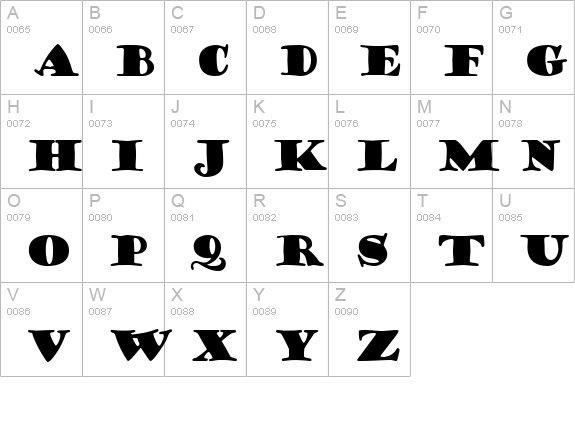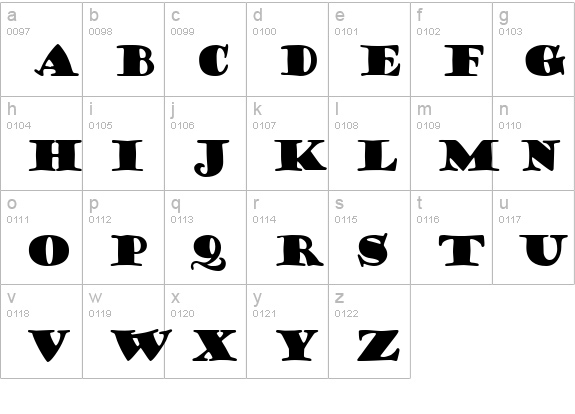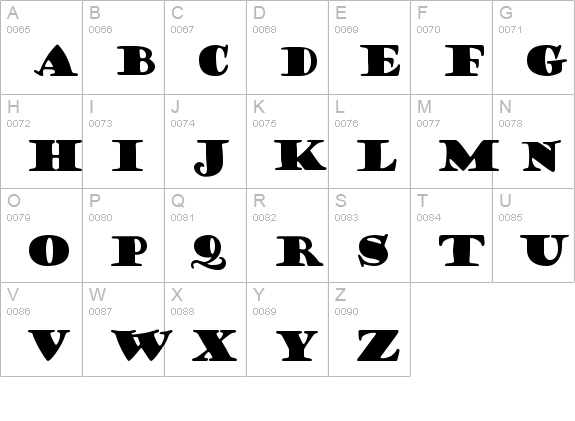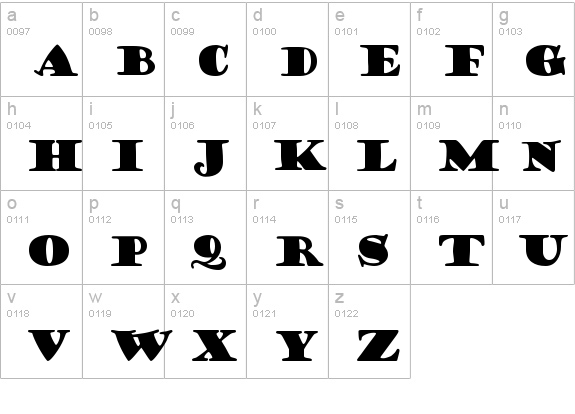
Goudy Stout Font Details
Goudy Stout is a classic and bold font with a strong presence that commands attention. Its thick and sturdy letterforms exude a sense of confidence and authority, making it perfect for headlines and branding projects that require a touch of elegance and sophistication. The timeless appeal of Goudy Stout makes it a versatile choice for a wide range of design applications. What sets Goudy Stout apart is not only its striking design but also the fact that it is available for free download at FontsMarket.com. This means that you can easily access this high-quality font without any cost, making it a valuable addition to your font library. Whether you're working on a poster, logo, or any other creative project, Goudy Stout is sure to make a statement and leave a lasting impression on your audience.